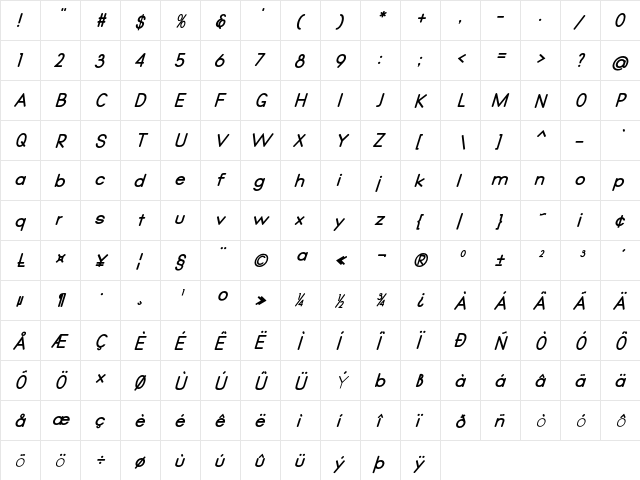
Qualio bold italic Regular Font Preview
Design Context for Qualio bold italic Typeface
Qualio bold italic takes a measured approach to typography — its balanced proportions and neutral character make it a reliable workhorse for both digital and print work. The slanted form adds forward momentum and visual energy. Its bold stroke weight gives it real presence on the page.
Pro Tip: Try Qualio bold italic for annotation and caption copy alongside an upright companion — the contrast in angle creates a dynamic but ordered typographic system.